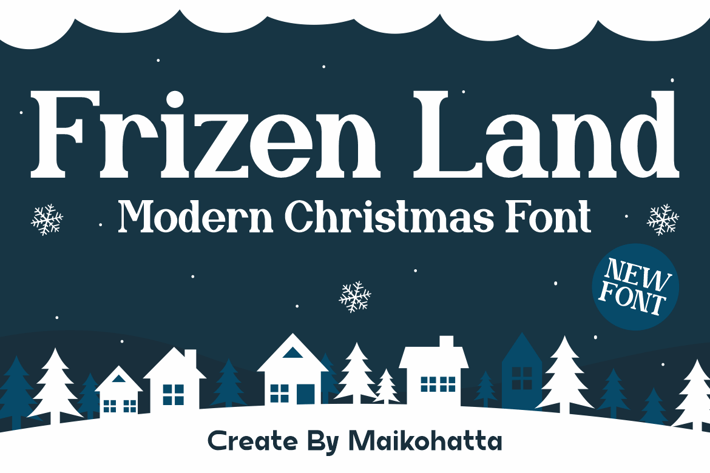
Frizen Land - Modern Christmas Font
Introducing our new product Frizen Land Modern Christmas Font
Frizen Land Modern Font is a bold and authentic display font. The font is suitable for any branding project like logo, Template Design, and many more. outstanding in a wide range of contexts.